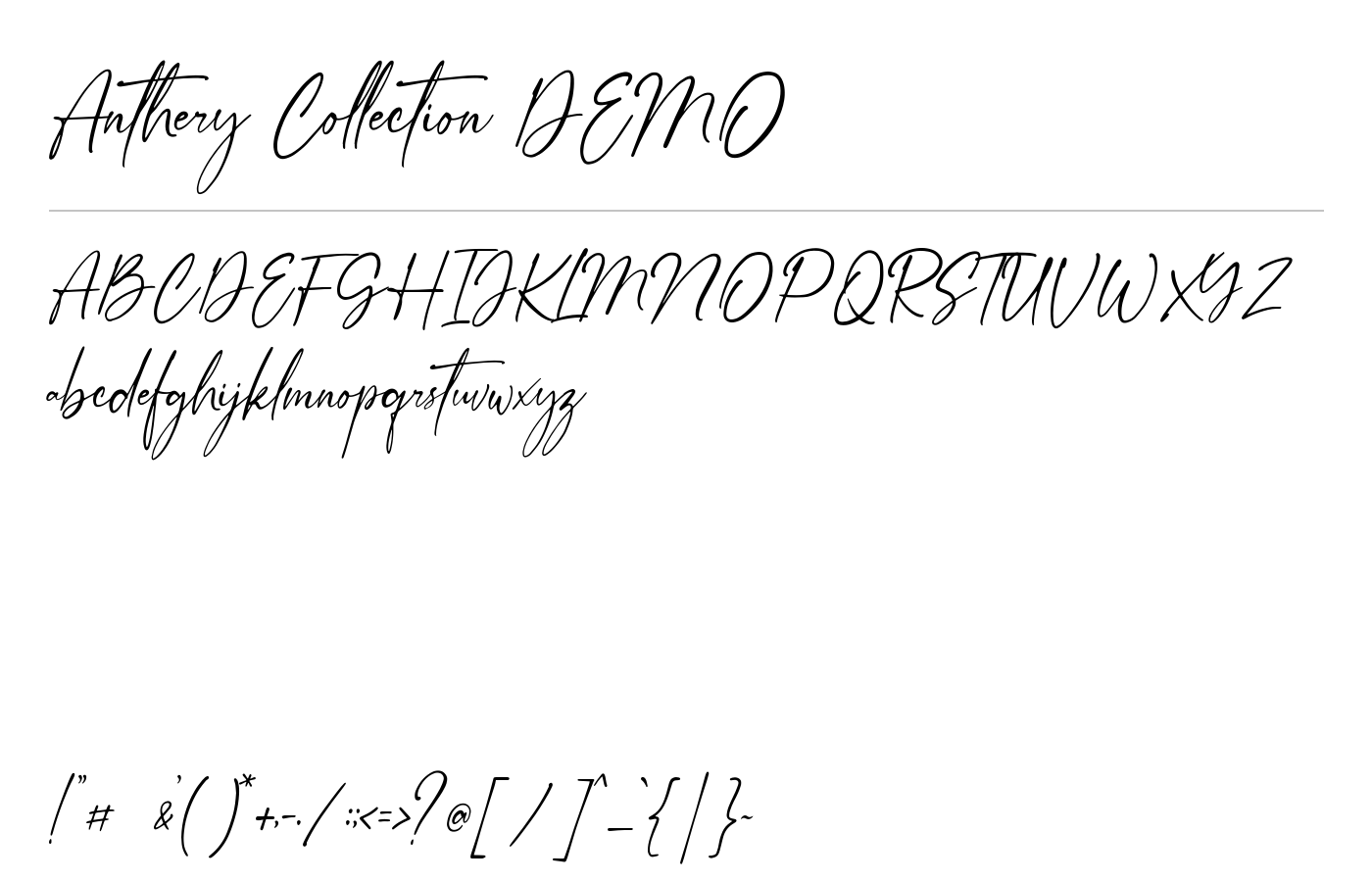
Anthery Collection DEMO is a delicate, modern script font with a handwritten feel, featuring tall, slender letters and fluid, slightly irregular strokes that convey elegance and a personal touch. Its fine weight and airy spacing make it ideal for inviting, stylish designs such as branding, invitations, and creative headlines where a chic, intimate atmosphere is desired. This font works beautifully in projects that aim to blend sophistication with warmth and authenticity.
Anthery Collection DEMO Font
About Anthery Collection DEMO Font